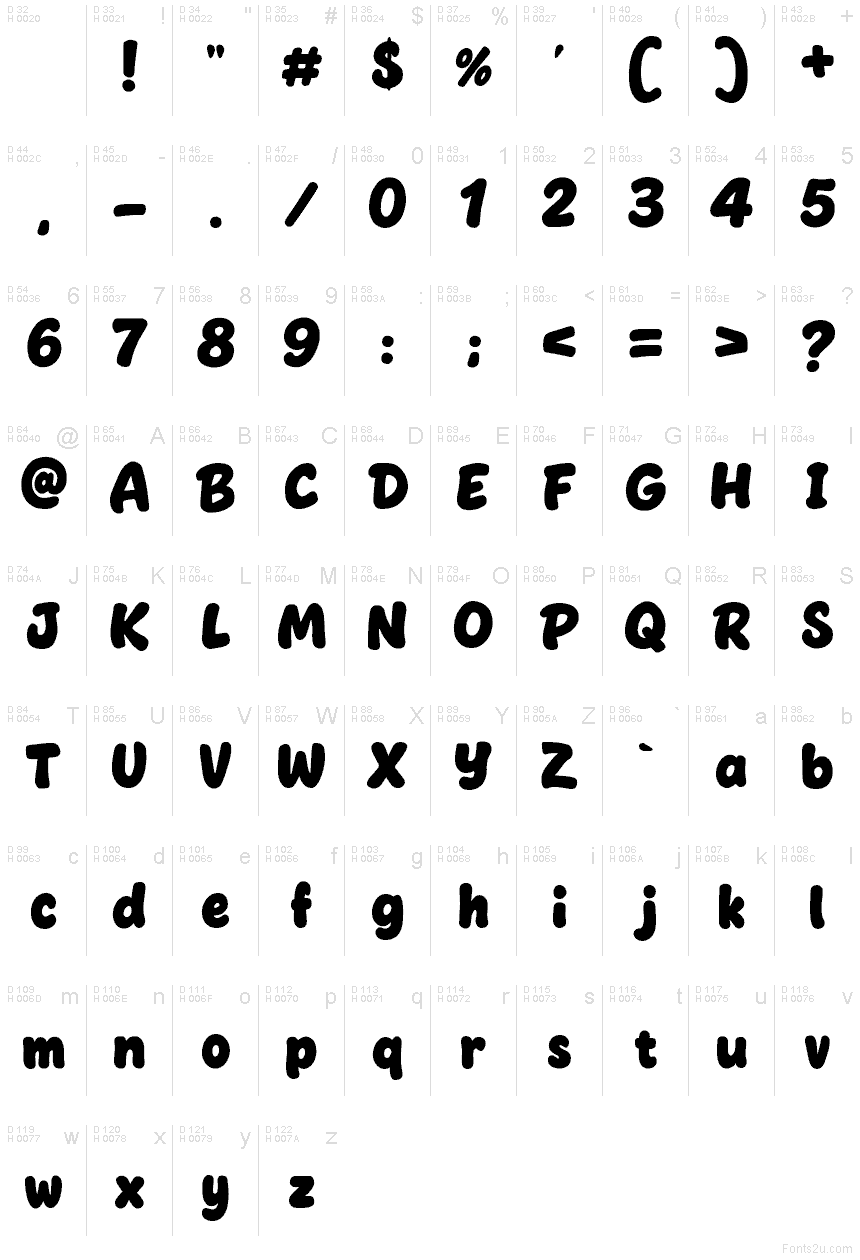
Biscuit Glitch
Biscuit Glitch font by BlackFridayFont FMF is a free bubbly cartoon display font. Big, rounded forms puff up like fresh dough, with smooth curves and a steady rhythm that reads fast and feels delightfully squishy. It’s built around the rare mix of chunky weight and calm spacing, so you get playful personality without the mess—bold impact that stays clean on screens and stickers alike.
Using Biscuit Glitch, you can brighten snack packaging, kids’ branding, game titles, YouTube thumbnails, birthday invites, toy logos, and app splash screens. This free font loves large sizes, but holds up in subheads too. Pair it with a crisp geometric sans for body copy, or add a hint of letterspacing for extra bounce.